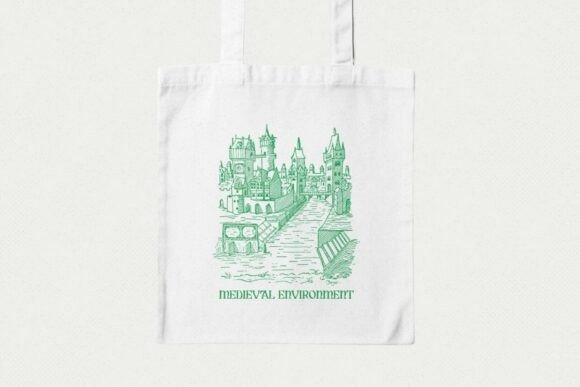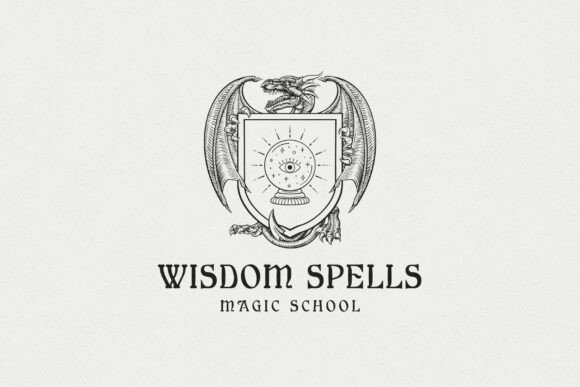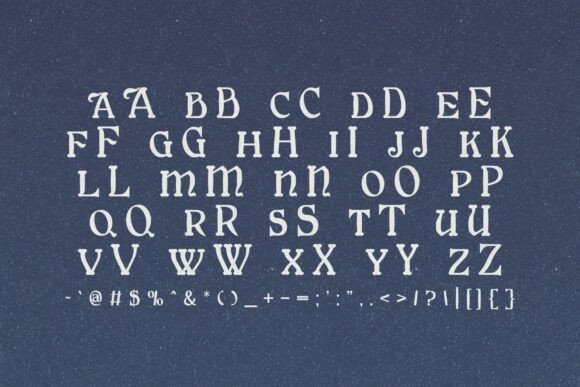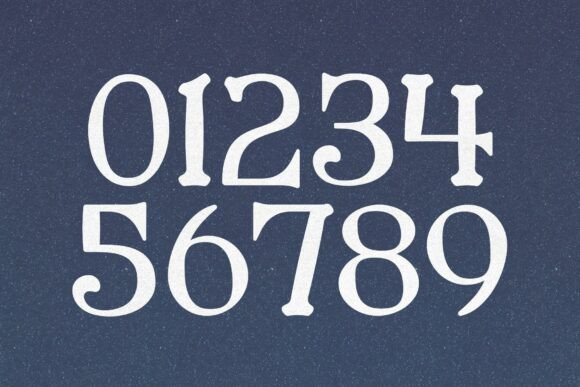
Merchant Ledger Font
Step into the shadows of history with Merchant Ledger, a striking blackletter Old English typeface forged from the spirit of gothic tradition. With its dramatic curves, intricate letterforms, and medieval charm, Merchant Ledger exudes the authority and mystique of ancient manuscripts and royal decrees.